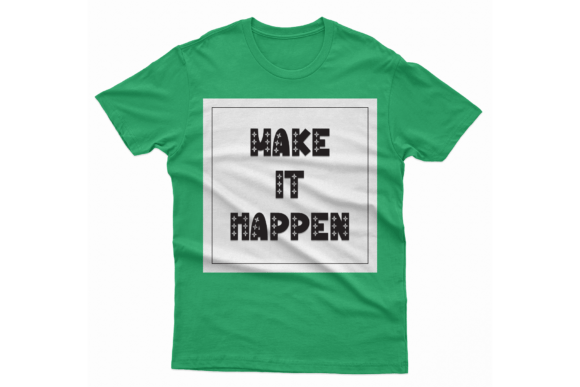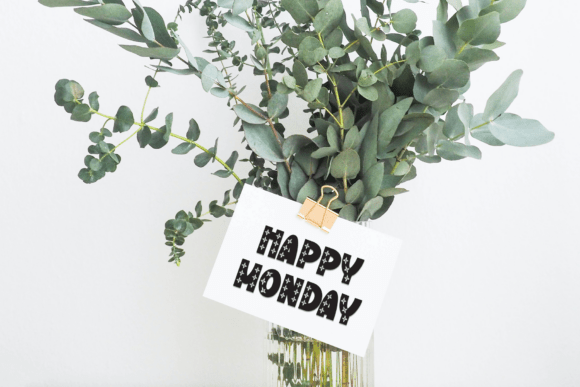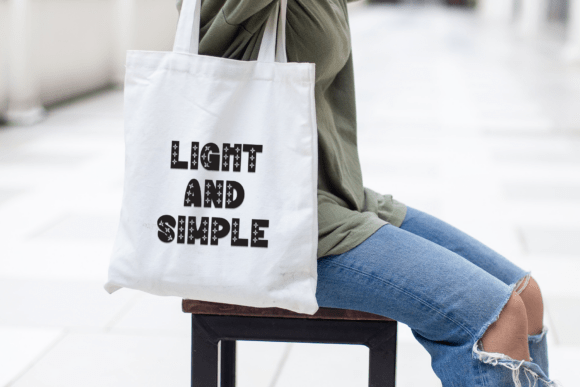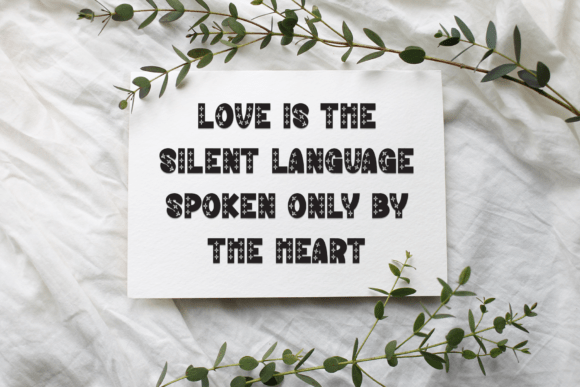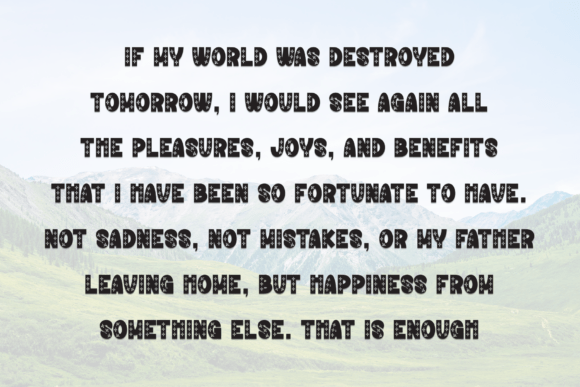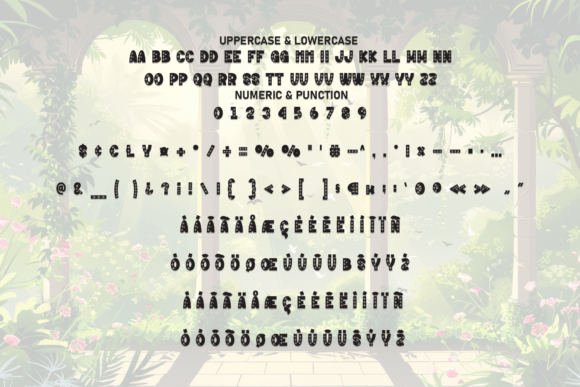
Introduction to Kingdom Garden Font
Kingdom Garden is a bold, decorative display font that combines a massive blocky structure with intricate ornamental details.
This creative and unique font features ultra-thick letterforms with sharp geometric corners Its most defining feature is the series of decorative โfour-petal flowerโ or star-shaped negative space cutouts running vertically through each character, giving the text an architectural and garden-inspired feel.